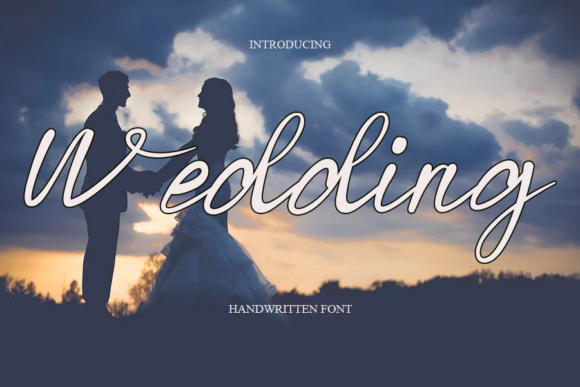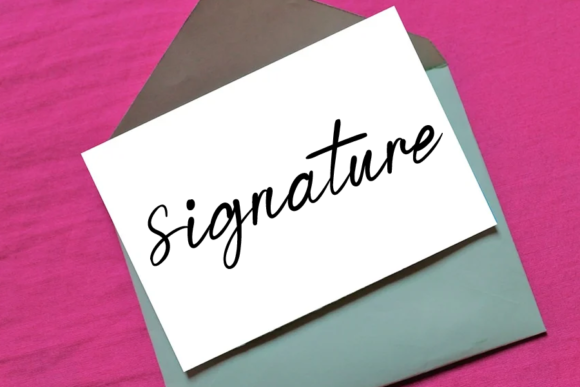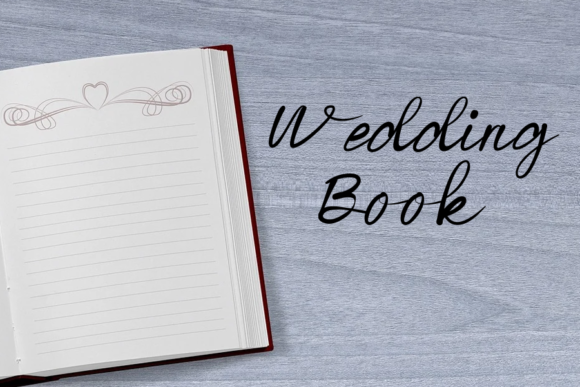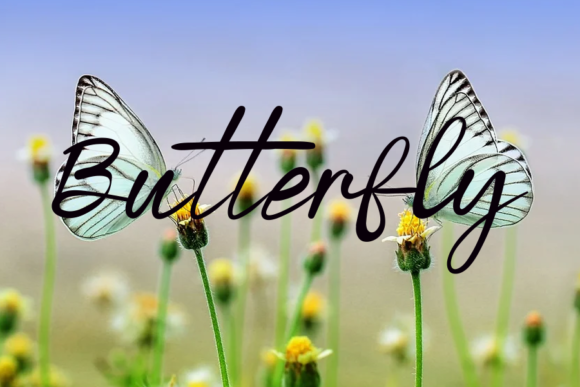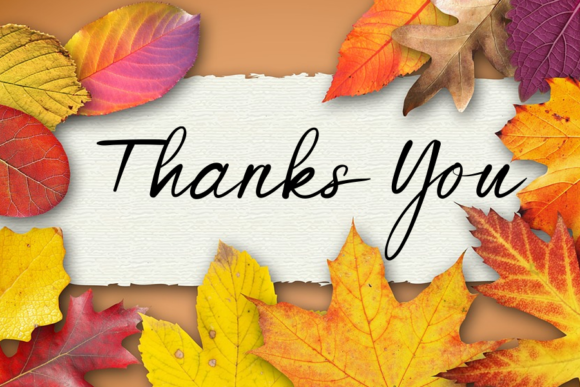
About Wedding Font
Wedding is a beautiful and refined script font. It has a classy, elegant and modern look that can be used for logos, branding, invitations, stationery, wedding designs, social media posts, and much more!